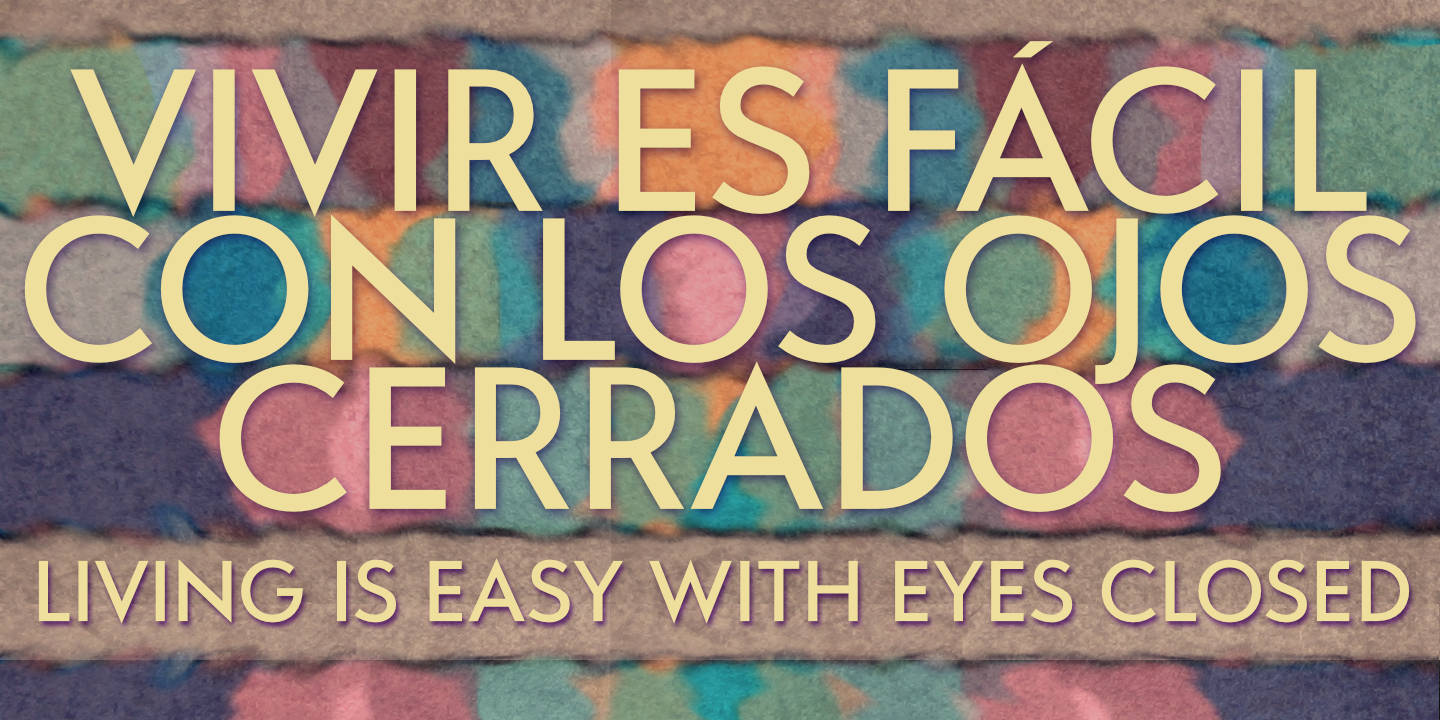
Carisma Gothic Medium
Originally introduced in 2007, Carisma™ quickly caught the eye of discerning designers worldwide. As type critic and designer Paul Shaw said in HOW magazine, "If you're in need of a sophisticated sans serif font, look no further than Jason Castle's Carisma". With the release of the Gothic subfamily, Carisma is now an even more valuable addition to your typographic arsenal. It includes a full set of small caps, support for most European languages including those that use the Cyrillic alphabet, OpenType-accessible ligatures, and much more.
Carisma Gothic is available in 9 weights: Hairline, Extra Light, Light, Regular, Medium, Demi, Bold, Extra Bold, and Ultra Bold. Also available: Carisma Classic and Carisma Gothic Inline. All Carisma fonts support at least 141 languages, including 13 that use the Cyrillic alphabet, such as Belarusian, Bulgarian, Macedonian, Russian, Serbian, and Ukrainian.